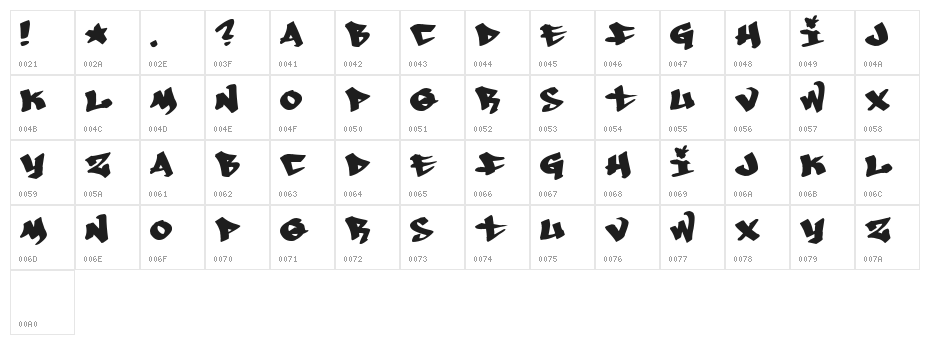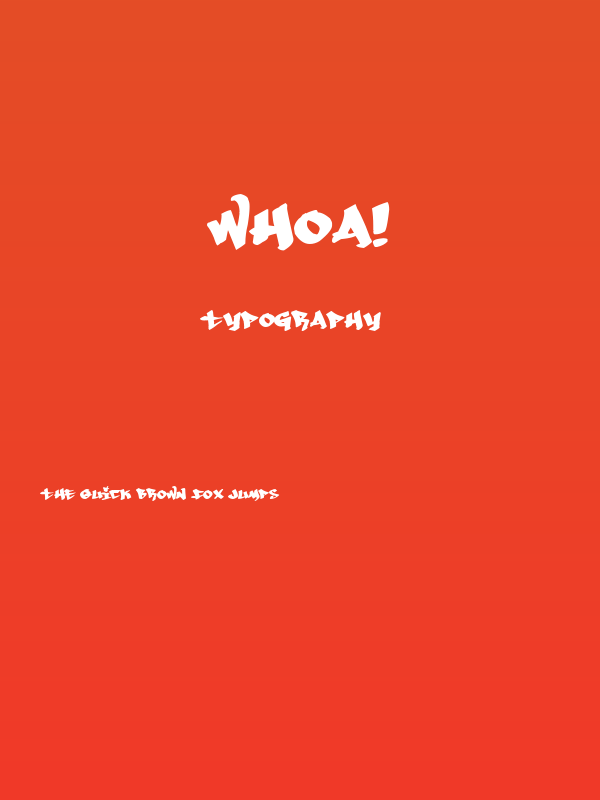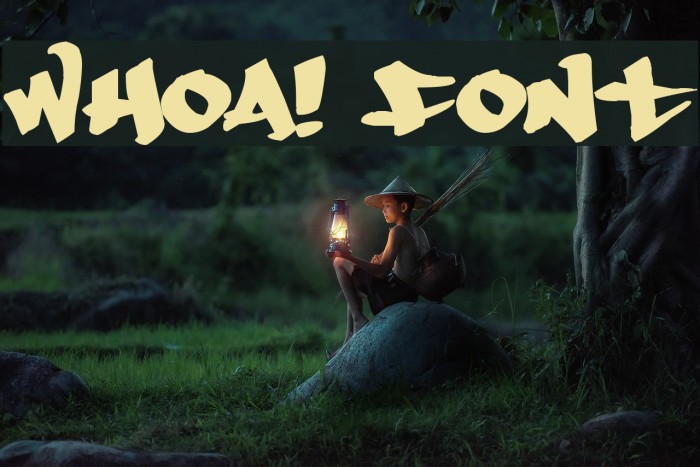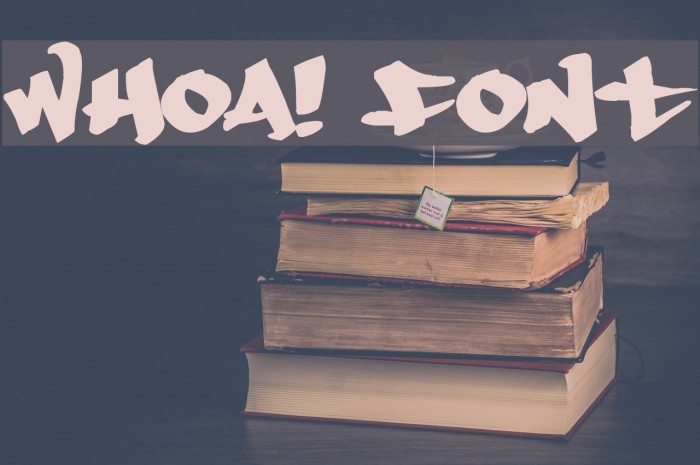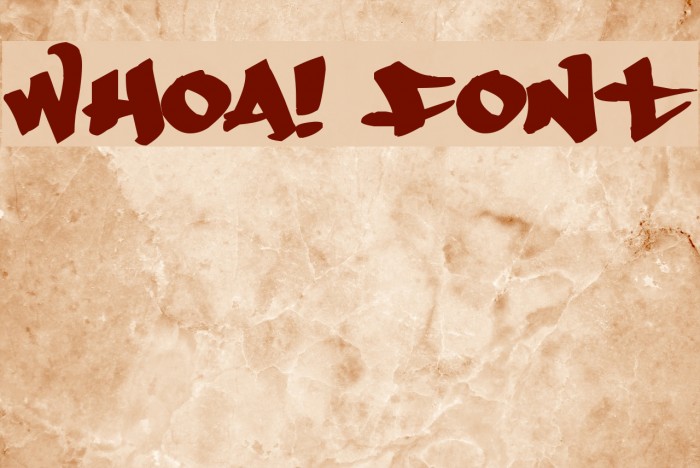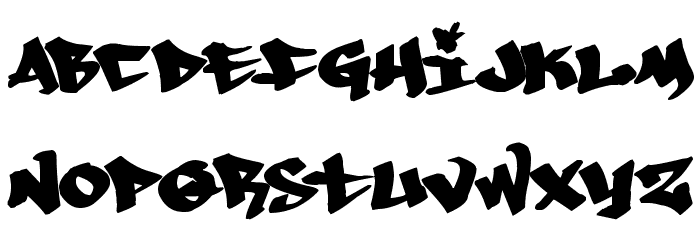
Whoa! Font
Whoa! Description
This font exhibits a bold and dynamic graffiti style, characterized by its sharp, angular lines and energetic flair. The uppercase letters are particularly striking, with exaggerated strokes and a sense of motion that suggests urban street art influences. The lowercase letters maintain this edgy aesthetic, offering a cohesive look across the alphabet. The numbers and special characters are equally bold, ensuring consistency throughout. This font's unique style makes it stand out, with a playful yet rebellious attitude that captures attention.
| Overall Style | Urban, Graffiti, Energetic |
| Proposed Projects | Ideal for street art-themed projects, urban branding, edgy posters, and music album covers. |